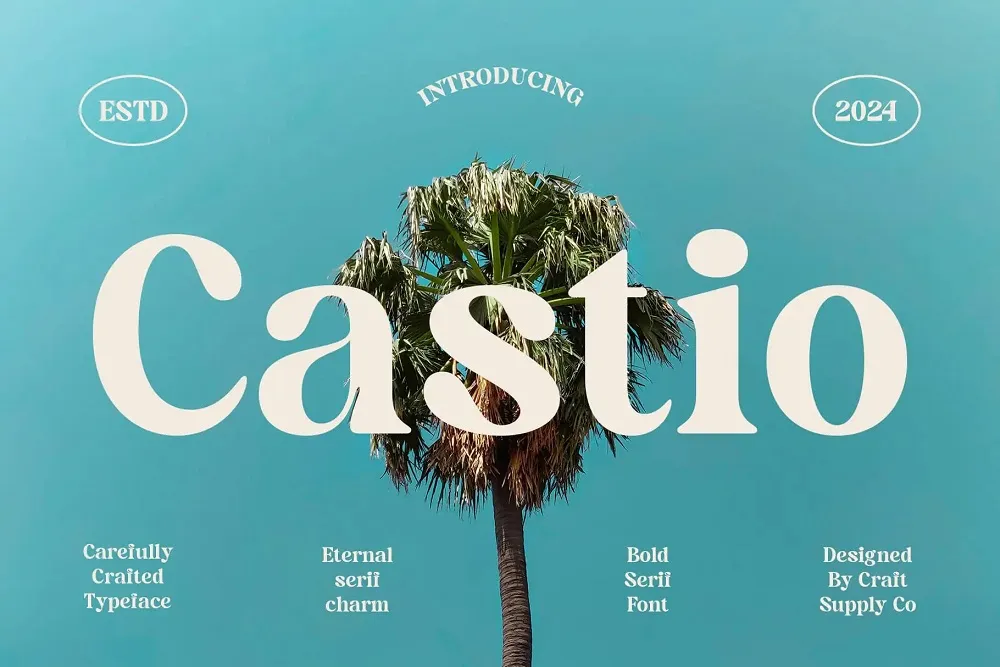
Castio is a bold, modern style retro and classy serif font with thicker strokes and fine accents. This font looks and feels quite regal and old school; therefore, it is ideal for designs that should convey elegance and tradition. Castio is optimal for the titles and logos or branding works that should have a touch of the elegant and classy vintage look.